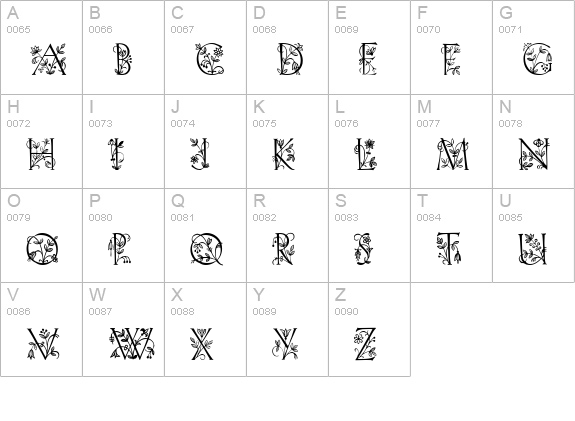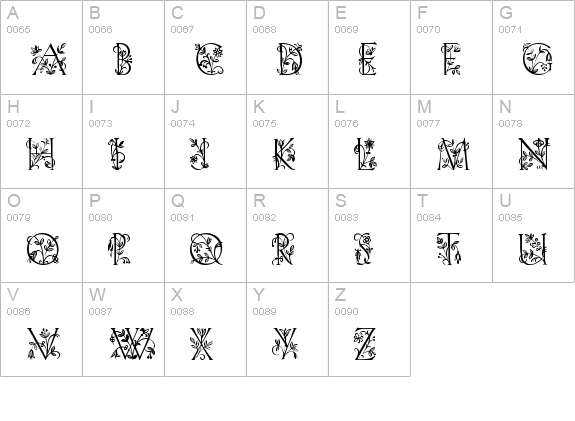
Lilith Initials Medium is a balanced, medium-weight variant in the Lilith typeface family \xE2\x80\x94 well suited to sub-headlines, navigation, and balanced editorial work.
Lilith Initials Medium font is a stunning typeface that exudes elegance and sophistication. With its intricate details and stylish design, this font is perfect for adding a touch of class to any project. The sleek lines and unique flourishes of Lilith Initials Medium make it a versatile choice for a wide range of design applications, from branding to editorial design. And the best part? Lilith Initials Medium font is completely free to download at FontsMarket.com! This means you can easily add this beautiful font to your collection without any cost. Don't miss out on the opportunity to enhance your projects with the timeless beauty of Lilith Initials Medium font. Download it today and elevate your designs to the next level.